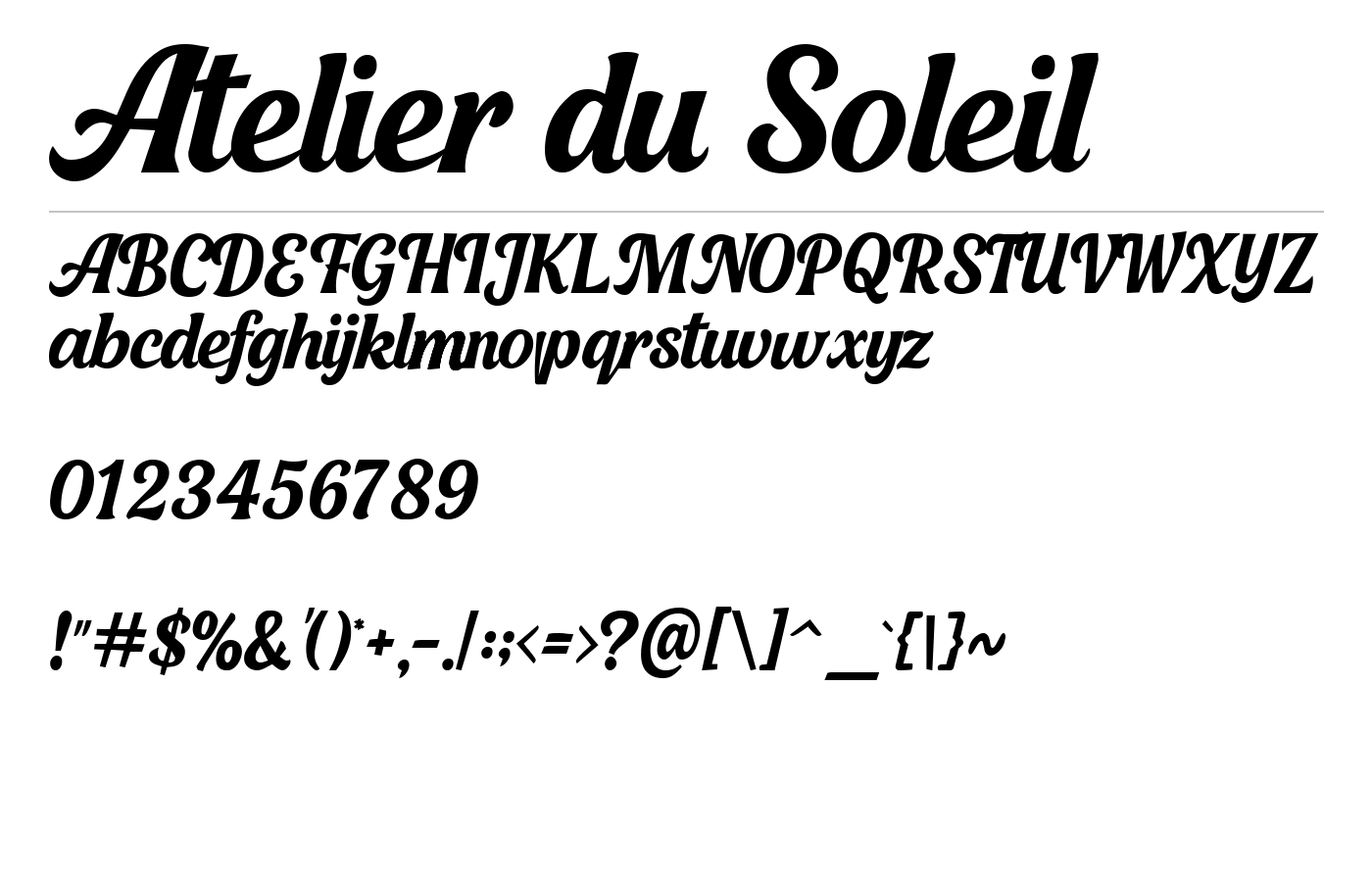
Atelier du Soleil is a bold, elegant serif font with a strong calligraphic influence, featuring smooth, flowing strokes and moderate contrast between thick and thin lines. Its slightly condensed letterforms and fluid italics create a sophisticated and stylish look, ideal for luxury branding, fashion, and editorial headlines. This font conveys a refined, classic personality while maintaining a modern flair, making it perfect for striking logos and impactful display text.
Atelier du Soleil Font
About Atelier du Soleil Font